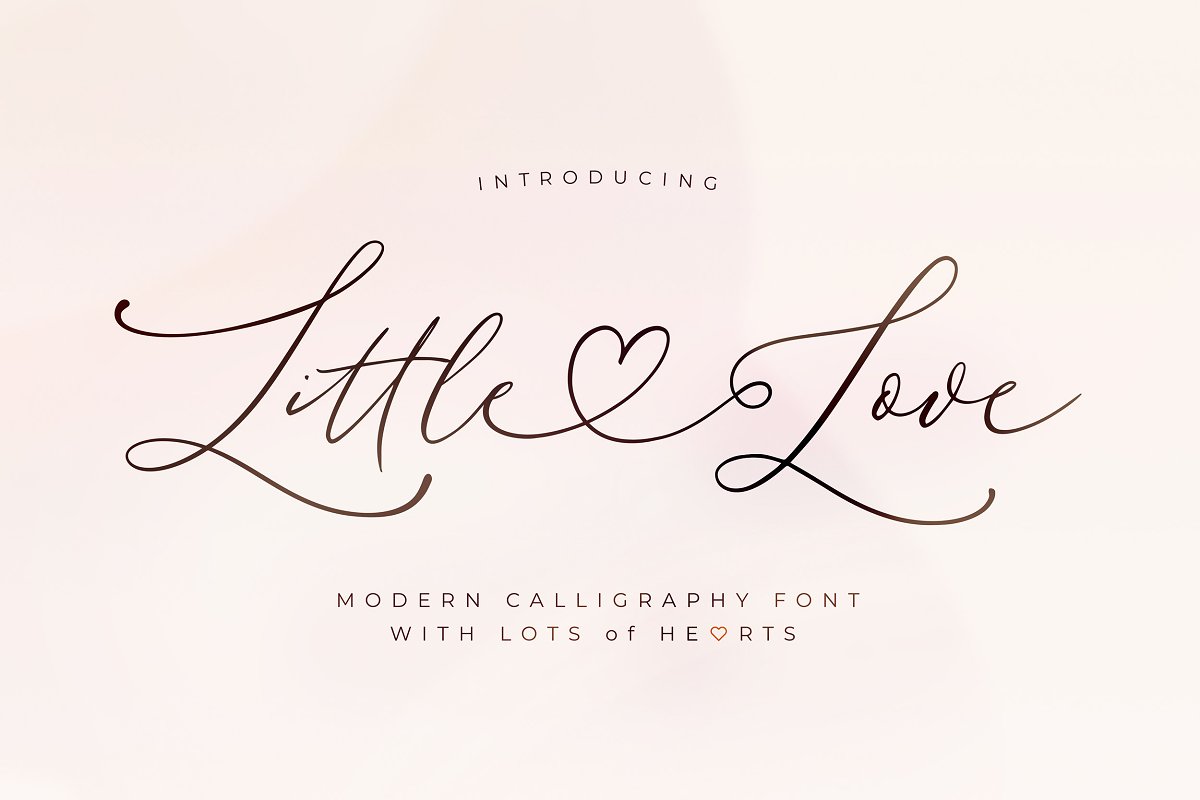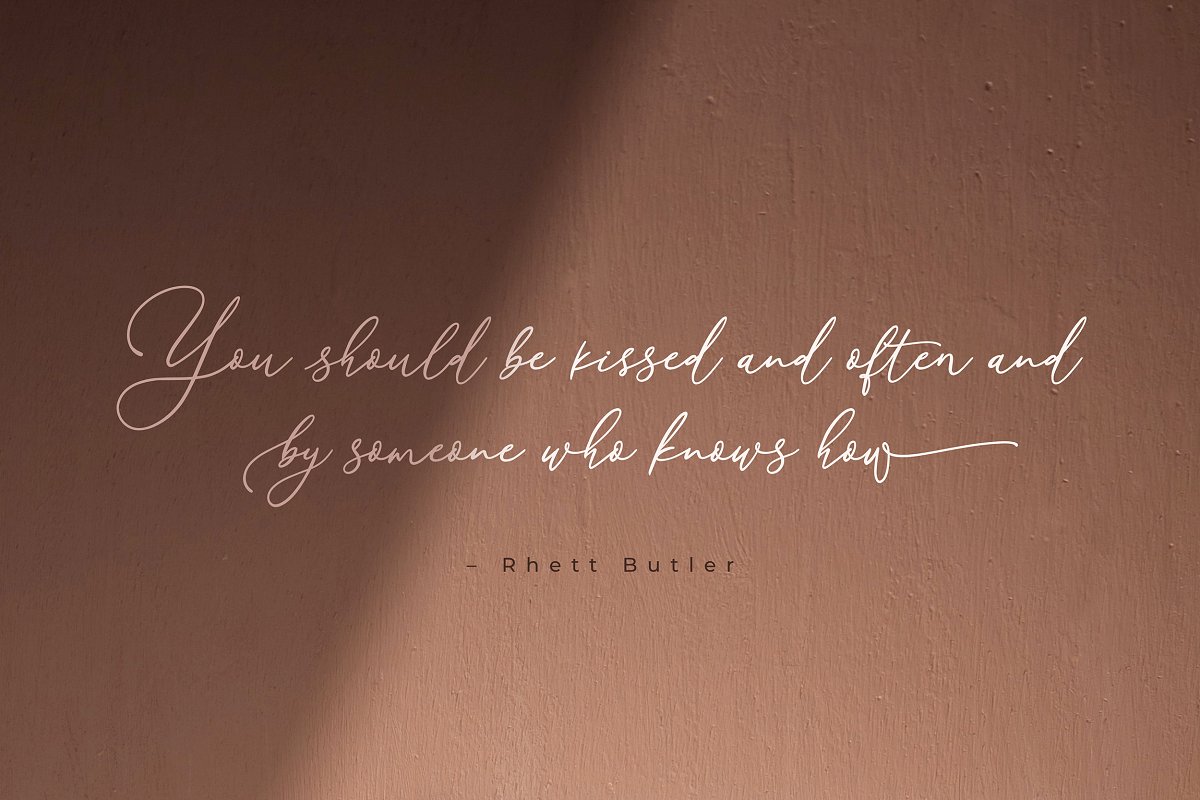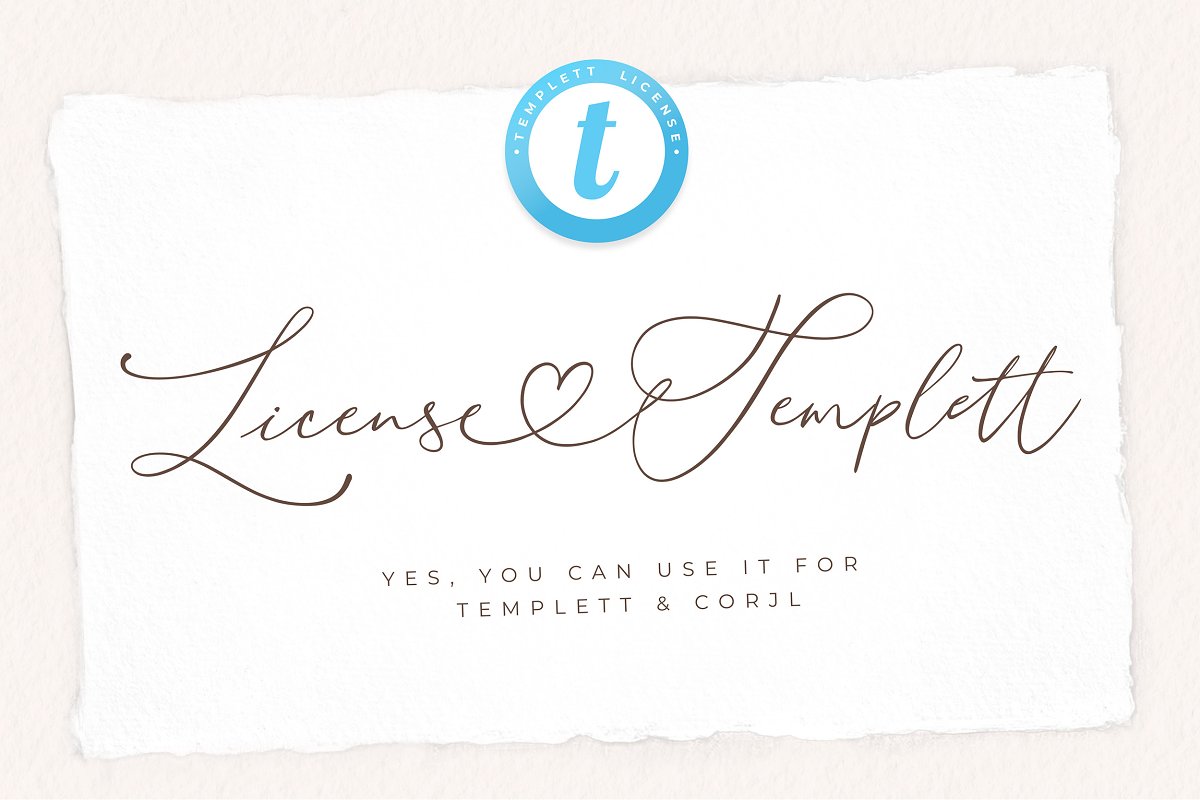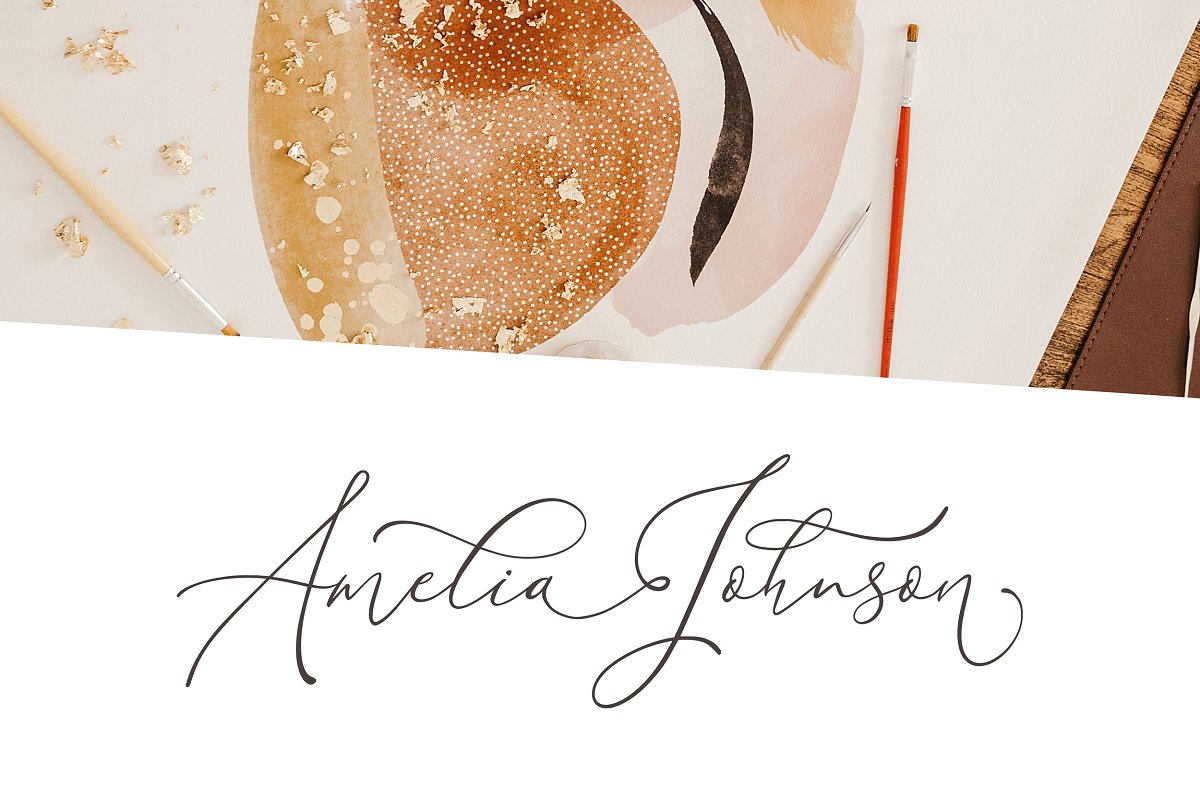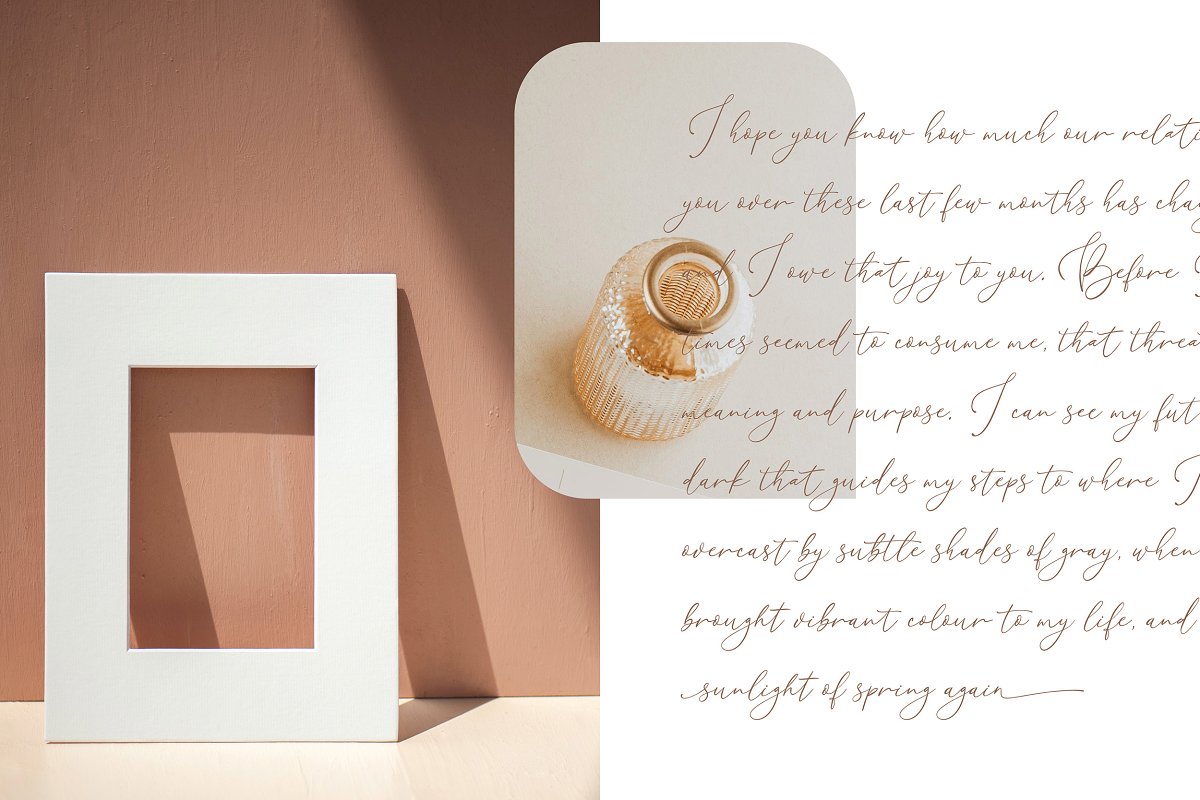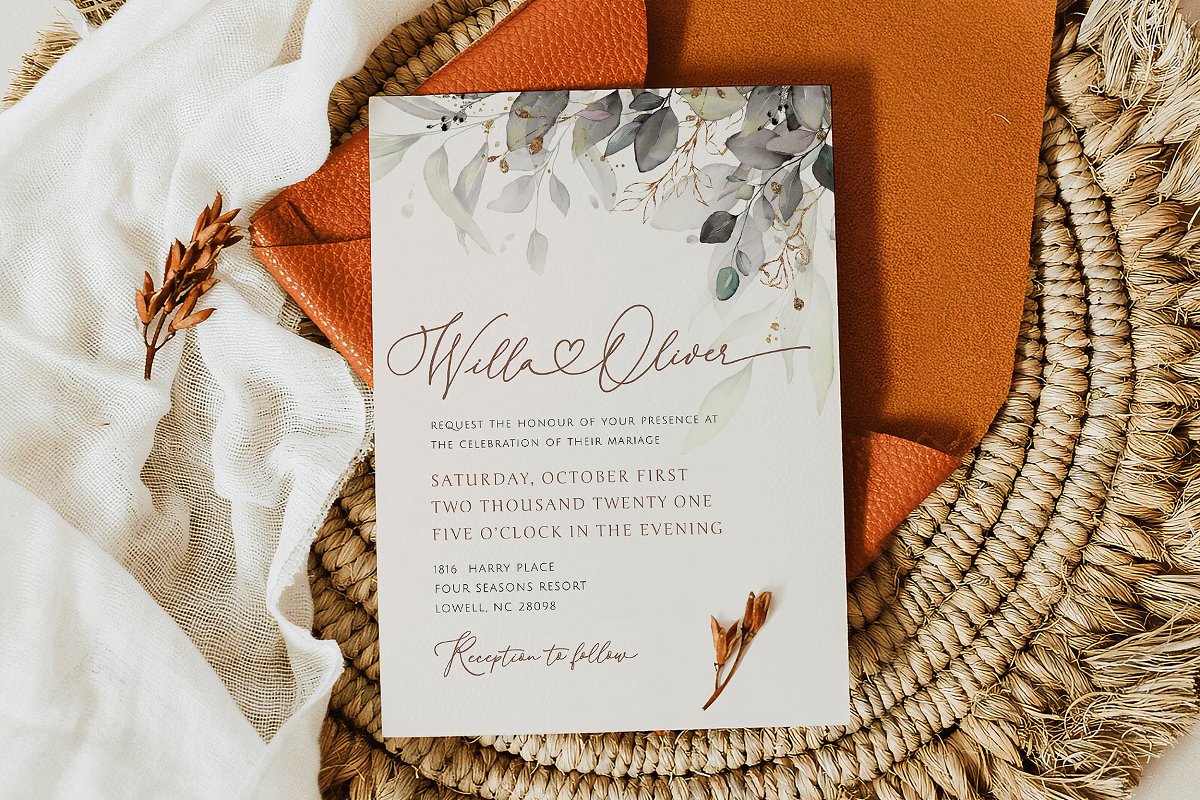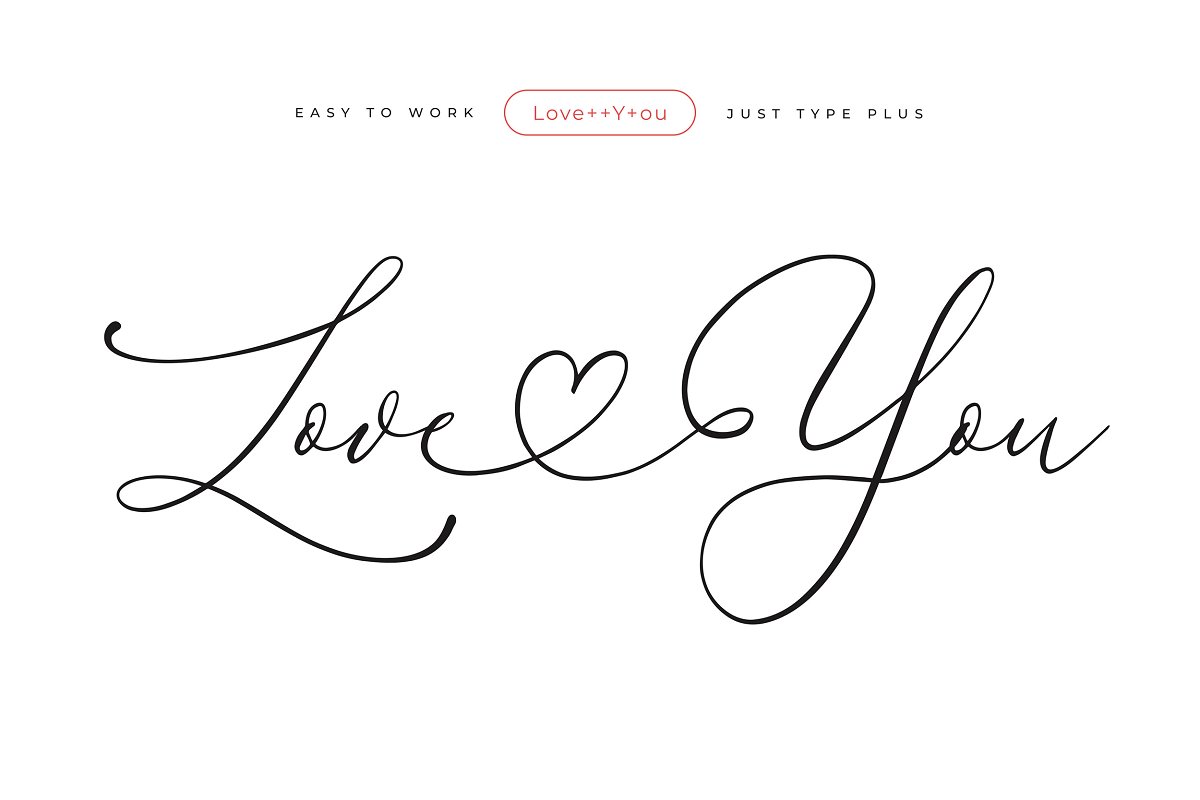
Introducing modern calligraphy font with lots of hearts inside: Little Love, This lovely script is dedicated to Valentine Day and all lovers, Download Little Love Demo: https://blessedprint, com/fonts/little-lovePreview all glyphs here: https://drive, google, com/file/d/1jBV1YDBmSXTCnRflOlX-SnEAtt-ToxVJ/WHAT YOU GET2 fonts (bold & regular)help file (with tutorials)repertoire fileOTF/TTF/WOFFTemplett/Corjl license (yes, you may create your designs with Little Love font)862 glyphs with PUA encodedtones of hearts, swashes and alternatesHOW IT WORKSSuper easy! Just install a font and start typing:try to add PLUS (+) after any letter
No matter lowercase or uppercasetry to add numbers after lowercase lettersadd [ for income swash and ] for outcome swashif you need more swashes, just type [[ or [[[ before lowercase letterPREVIEWTo see how it works try to type in preview window the following examples
Copy & paste each line individually, Am1el3ia+J+oh4nson3[olivia++j1acob][amelia]Love++Y+ouSt5y4leLittle++L+ove+You [[should be k2issed and often1 and b6y someone who knows how]Note: If your application doesn’t activate Standard Ligatures by default you need to turn it on
(It works with MS WORD! Open help file for details, )LANGUAGE SUPPORTDutch, English, Estonian, French, Hungarian, Italian, Latvian, Norwegian, Polish, Portuguese, Romanian, Spanish, Swedish, Turkish and others, PERFECT FORwedding invitationlogo designfeminine calligraphyvalentinesinstagram postssilhouette craft designs (all glyphs have PUA)If you have any questions fill free to drop me a line!